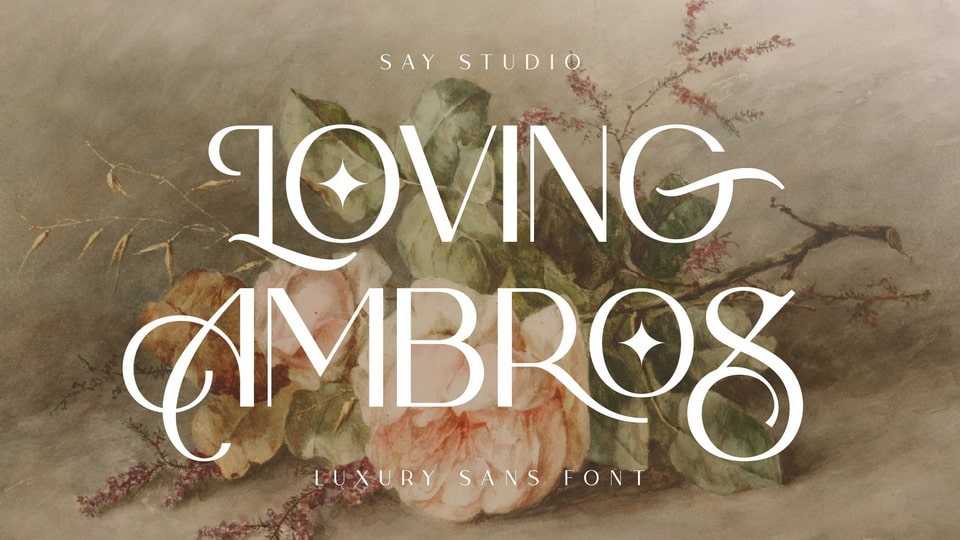
Download Loving Ambros font, a luxurious and beautiful serif font inspired of classics and calligraphy. Loving Ambros is perfect for designs with the concept of elegant, vintage, romance, fashion and so on.
Designer: Say Studio